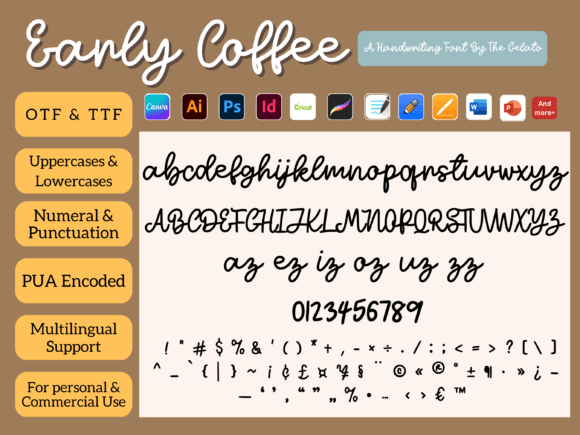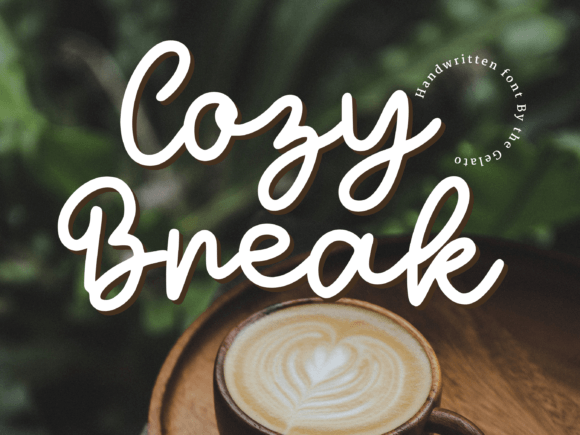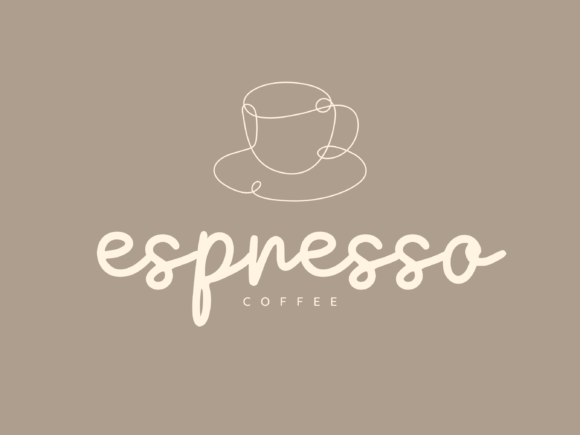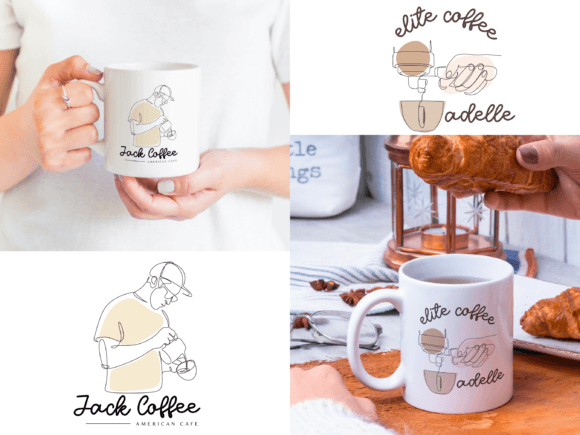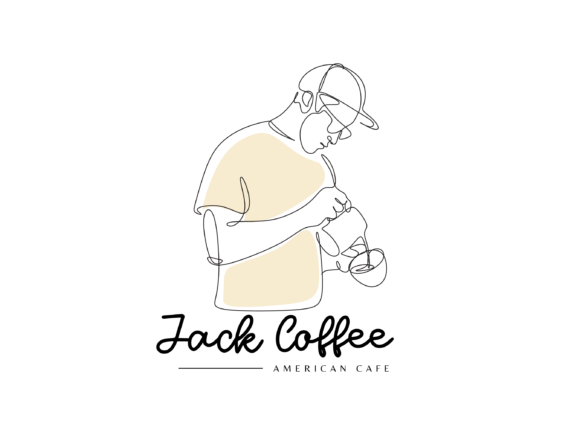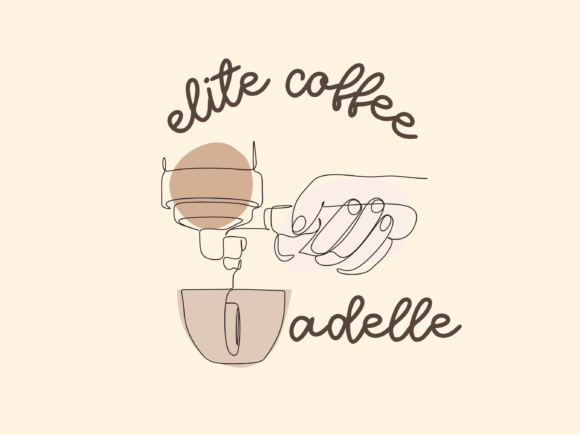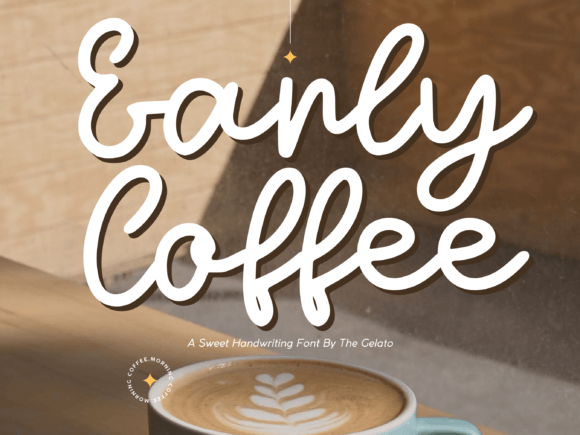
Introducing Early Coffee: The Perfect Monoline Handwritten Font for Designers and Crafters
Are you a designer or crafter looking for a unique and versatile font to elevate your creative projects? Look no further than Early Coffee, a beautiful monoline handwritten font that’s perfect for a variety of applications. In this article, we’ll explore the features and benefits of Early Coffee, and show you how it can be used to add a touch of elegance and sophistication to your designs.
What is Early Coffee?
Early Coffee is a monoline handwritten font that’s designed to mimic the look of calligraphy and embroidery. With its smooth, flowing lines and delicate connections, this font is perfect for creating beautiful and eye-catching text-based designs. Whether you’re looking to create a logo, banner, or menu sign, Early Coffee is the perfect choice.
Features of Early Coffee
So, what makes Early Coffee so special? Here are just a few of its key features:
• Monoline handwritten font: Early Coffee has a smooth, consistent line width that gives it a modern and elegant feel.
• Calligraphy and embroidery-inspired: The font’s flowing lines and delicate connections make it perfect for creating beautiful calligraphy and embroidery-inspired designs.
• Versatile: Early Coffee can be used for a wide range of applications, from coffee shop menus to quotation marks, banners, logos, and more.
• Easily readable: Despite its elegant and cursive nature, Early Coffee is still highly readable, making it perfect for use in titles, headers, and body text.
Use Cases for Early Coffee
So, how can you use Early Coffee in your designs? Here are just a few ideas to get you started:
• Coffee Shop Font: Use Early Coffee to create beautiful menus, signs, and branding for your coffee shop or cafe.
• Calligraphy and Embroidery: Early Coffee is perfect for creating calligraphy and embroidery-inspired designs, such as quotes, posters, and wall art.
• Logos and Branding: Use Early Coffee to create elegant and sophisticated logos and branding for your business or product.
• Product Packaging: Add a touch of elegance to your product packaging with Early Coffee, perfect for labels, tags, and more.
• Invitation Cards: Use Early Coffee to create beautiful and unique invitation cards for weddings, parties, and other special events.
Why Choose Early Coffee?
So, why should you choose Early Coffee for your design projects? Here are just a few reasons:
• Unique and distinctive: Early Coffee has a unique and distinctive look that will set your designs apart from the crowd.
• Elegant and sophisticated: This font has an elegant and sophisticated feel that’s perfect for creating high-end designs.
• Versatile: Early Coffee can be used for a wide range of applications, making it a great addition to any designer’s font library.
• Easily readable: Despite its elegant nature, Early Coffee is still highly readable, making it perfect for use in a variety of contexts.
Font Name Early Coffee Font
Author The Gelato
In conclusion, Early Coffee is a beautiful and versatile monoline handwritten font that’s perfect for designers and crafters looking to add a touch of elegance and sophistication to their designs. With its smooth, flowing lines and delicate connections, this font is perfect for creating beautiful calligraphy and embroidery-inspired designs, as well as logos, banners, menus, and more. Whether you’re a designer, crafter, or DIY enthusiast, Early Coffee is a great addition to any font library.